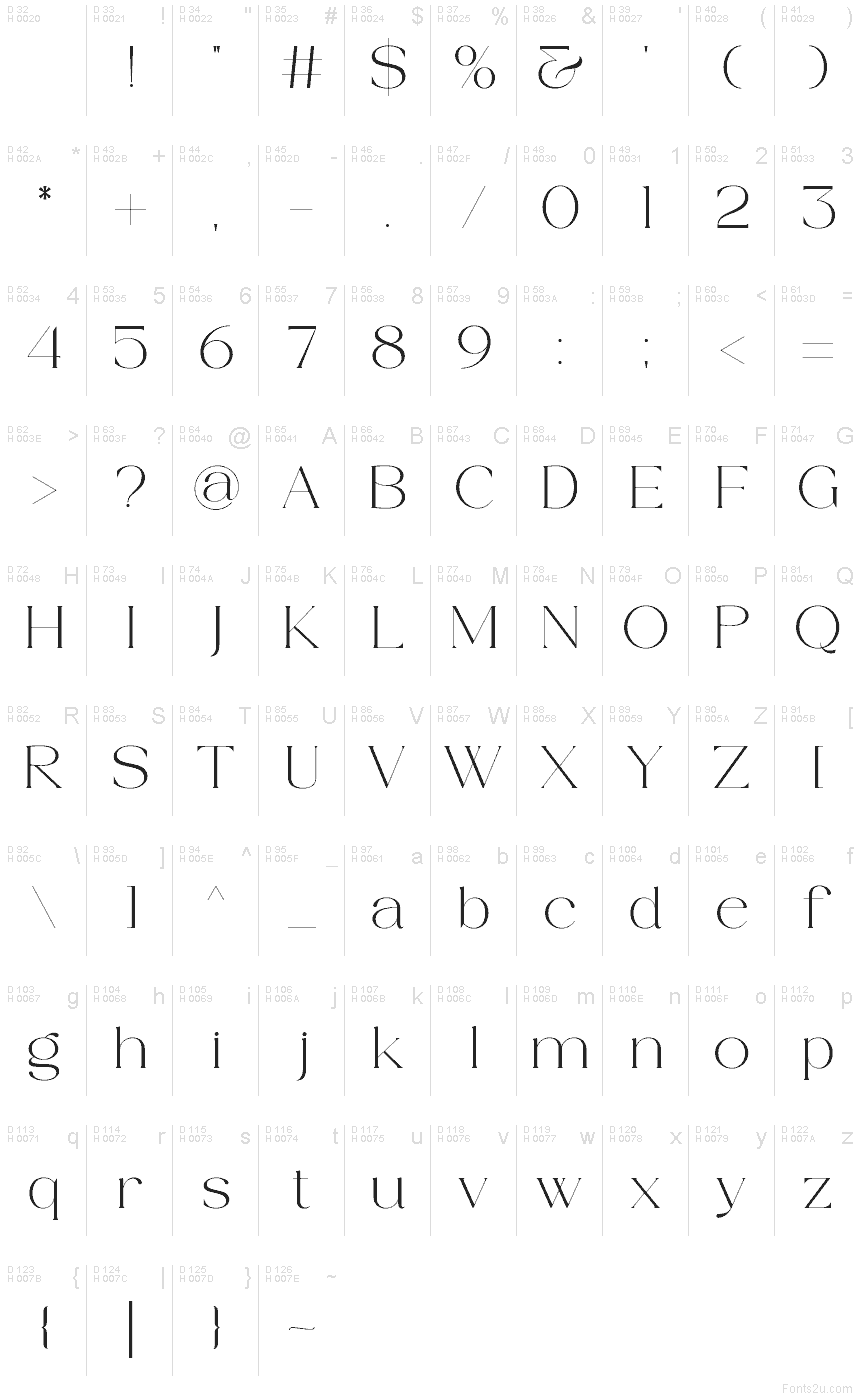
BHYORA
Bhyora font by ToniStudio is a free elegant serif typeface. Its signature look comes from razor-fine hairlines meeting sculpted, tapering stems, giving each word a cool, polished gleam. The spacing feels airy without drifting apart, so titles breathe while still landing with poise.
Using Bhyora, you’ll get refined impact for fashion branding, boutique logos, beauty packaging, editorial headlines, event invitations, and luxe posters or social banners. The rhythm is crisp, the edges feel chiseled, and the overall tone reads upscale without being fussy. For balance, pair this free font with a quiet grotesk sans for body copy, or keep it large with generous letterspacing to let the curves shine.